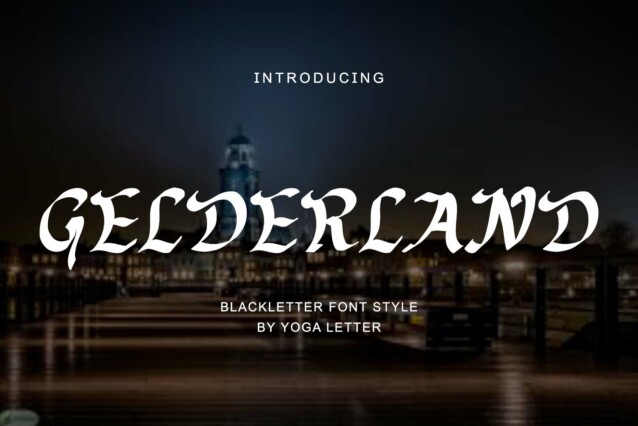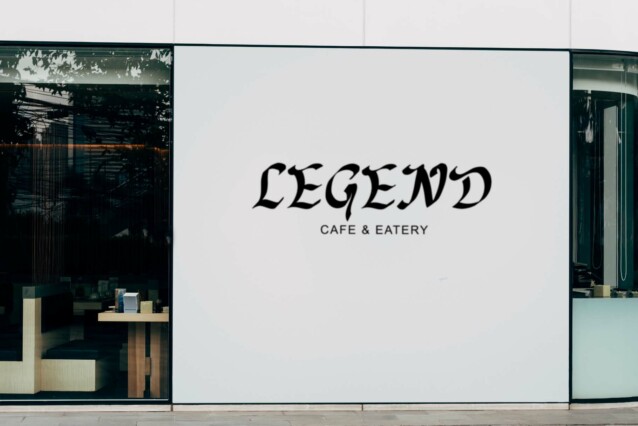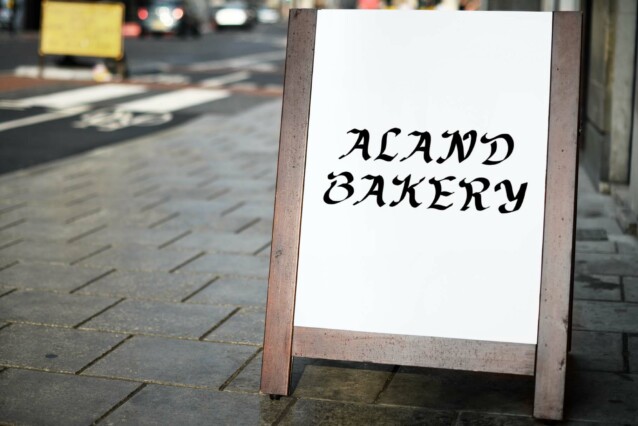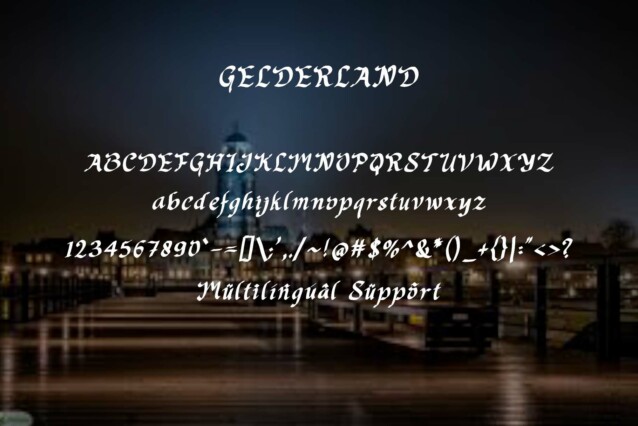
Gelderland Font
Gelderland Font is an elegant and professional blackletter font. This font is equipped with uppercase, lowercase, numerals, punctuation, and multilingual support. Very suitable for logos, banners, branding, posters, invitations, weddings, engagements, stickers, tattoos, and others.